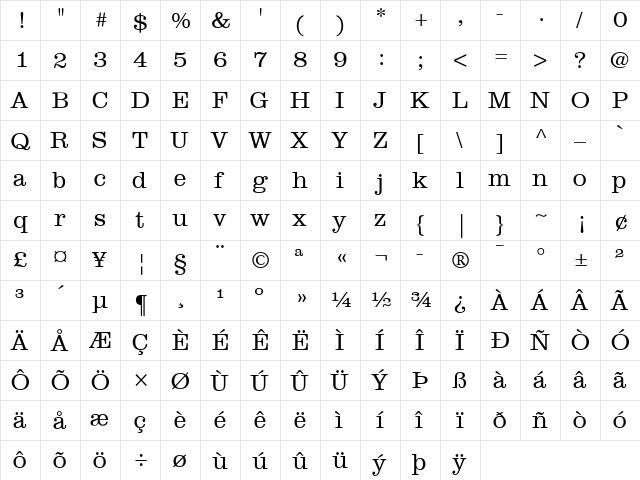
Clarendon Light Regular
Design Context for Clarendon Light Typeface
Clarendon Light features prominent, blocky serifs that give it a confident, grounded presence — equally at home in editorial settings and bold branding work. The delicate stroke weight brings airiness and refinement to layouts.
Suited to magazines, political campaign materials, bold packaging, and any setting where authority matters.
Pro Tip: Use Clarendon Light for headlines and subheadings where its slab serifs can make an impression. It also holds up well in mid-size body copy thanks to its sturdy construction.